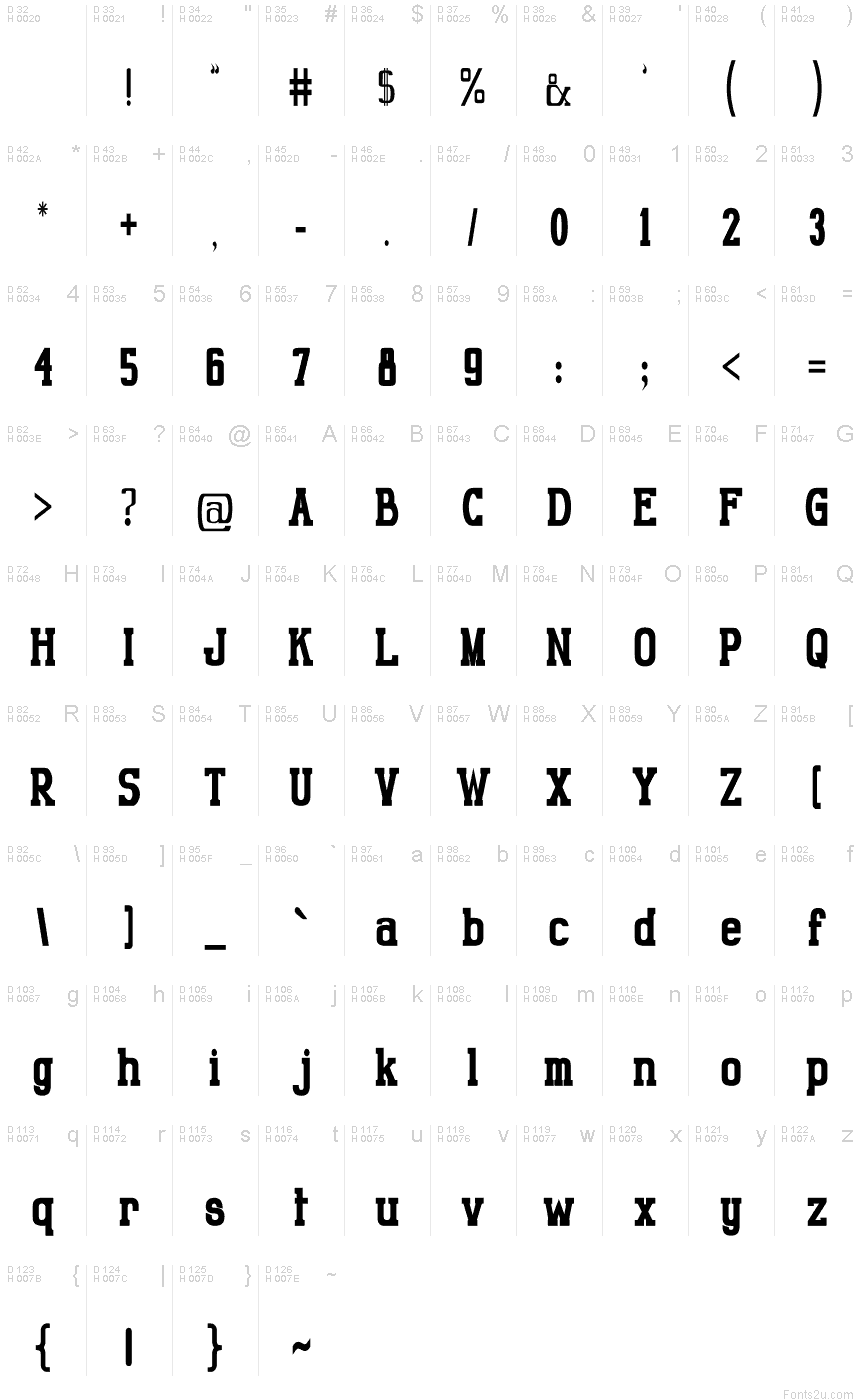
Gabriel Serif Bold Condensed, designed by Gabriel Mark Perida, is a free bold condensed serif font with towering, tightly packed forms. Its broad vertical strokes narrow abruptly into slim joins and sharp slab-like serifs. The result is forceful and economical.
In publishing, its compressed width and dark texture suit magazine covers with emphatic typography. The same dense silhouette gives concert posters, sports merchandise, and beverage packaging an assertive, slightly industrial edge. On a product label, the lettering can become a solid banner-like element rather than simply naming what is inside.